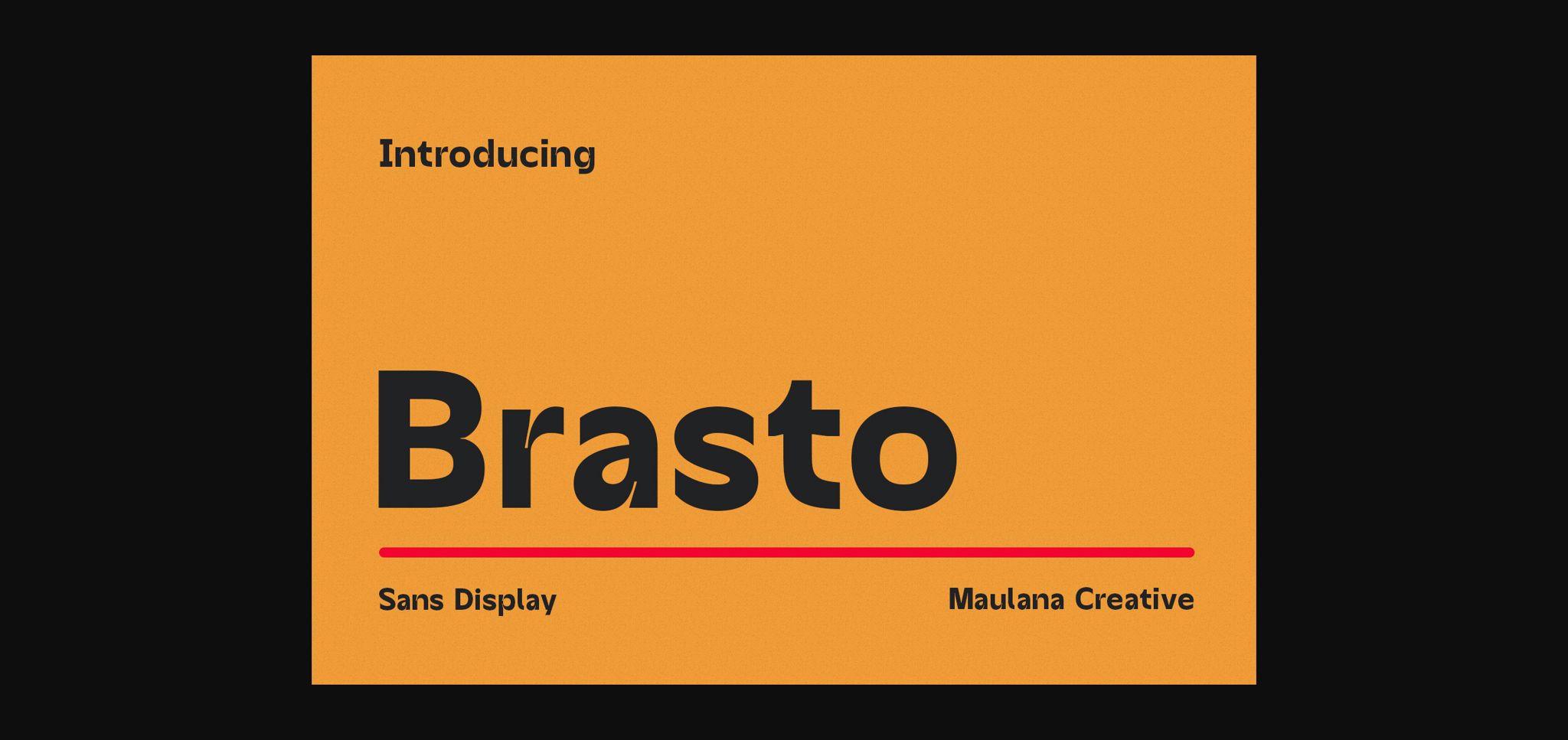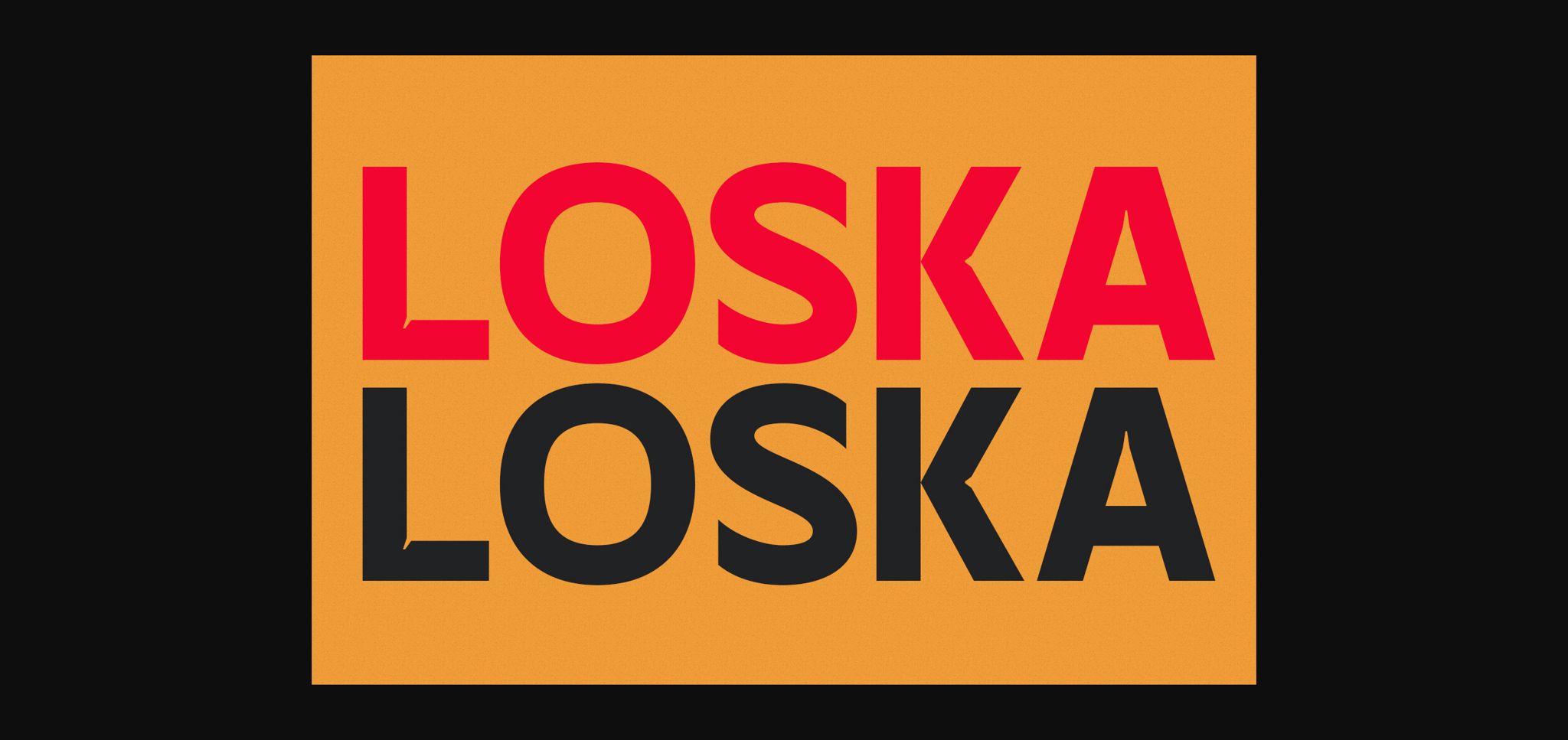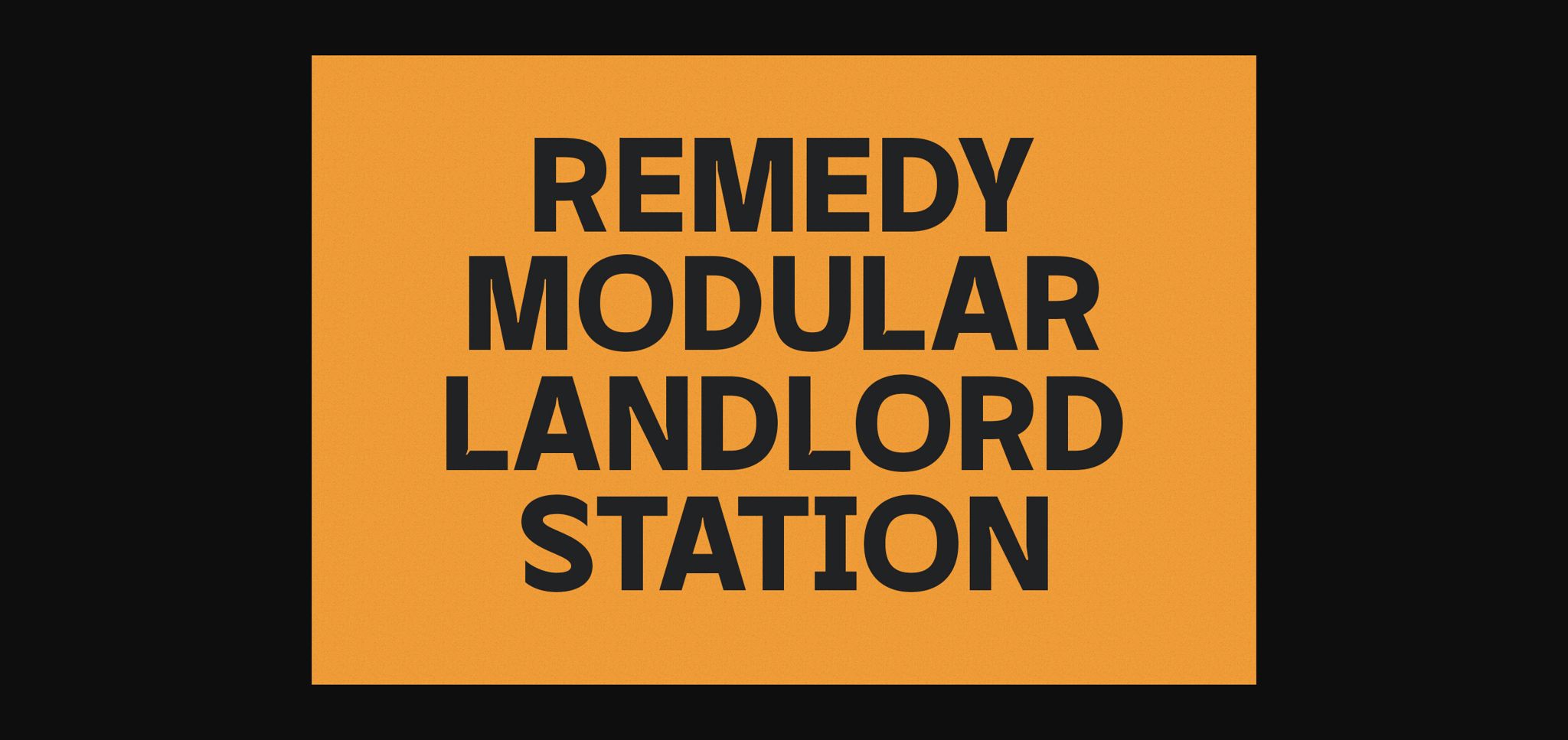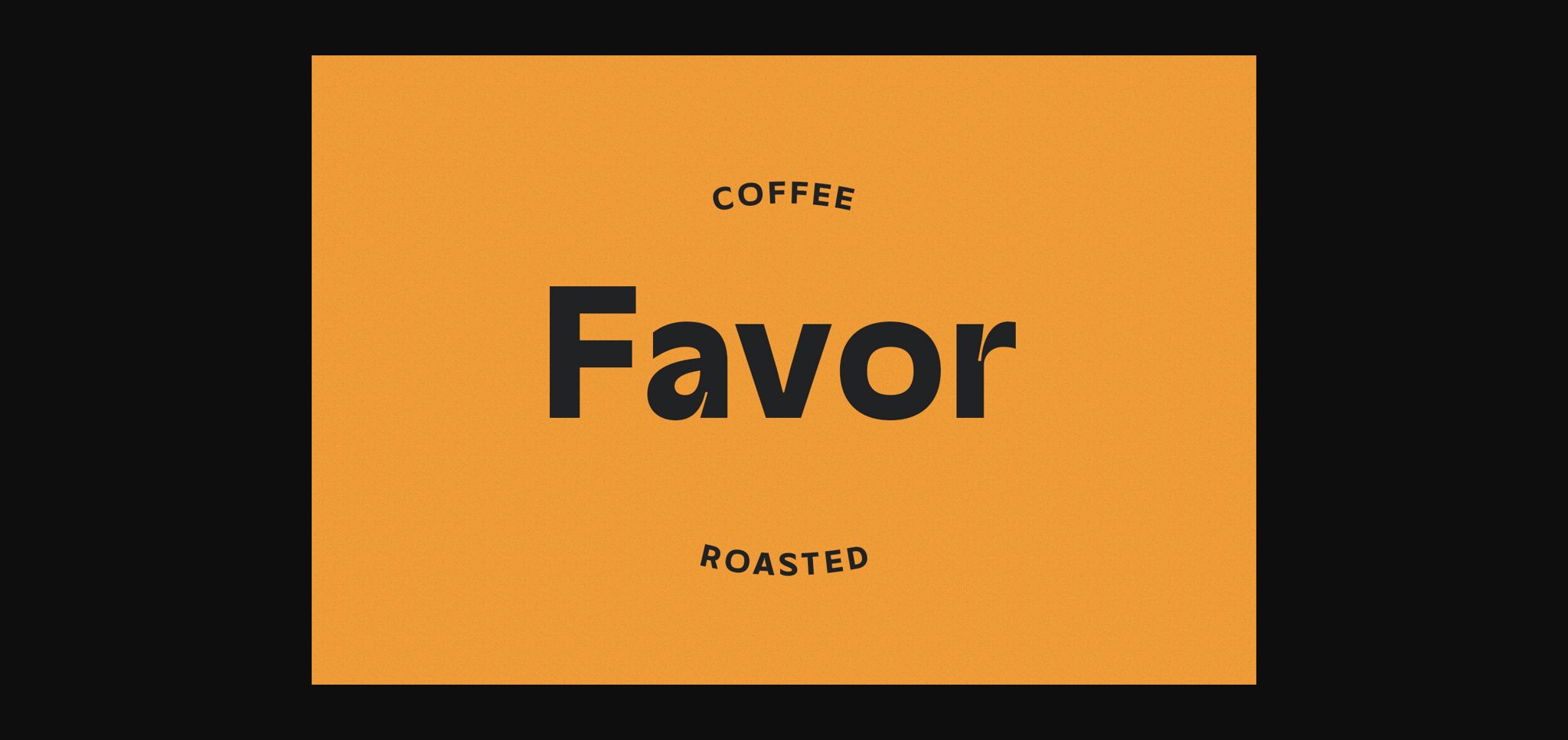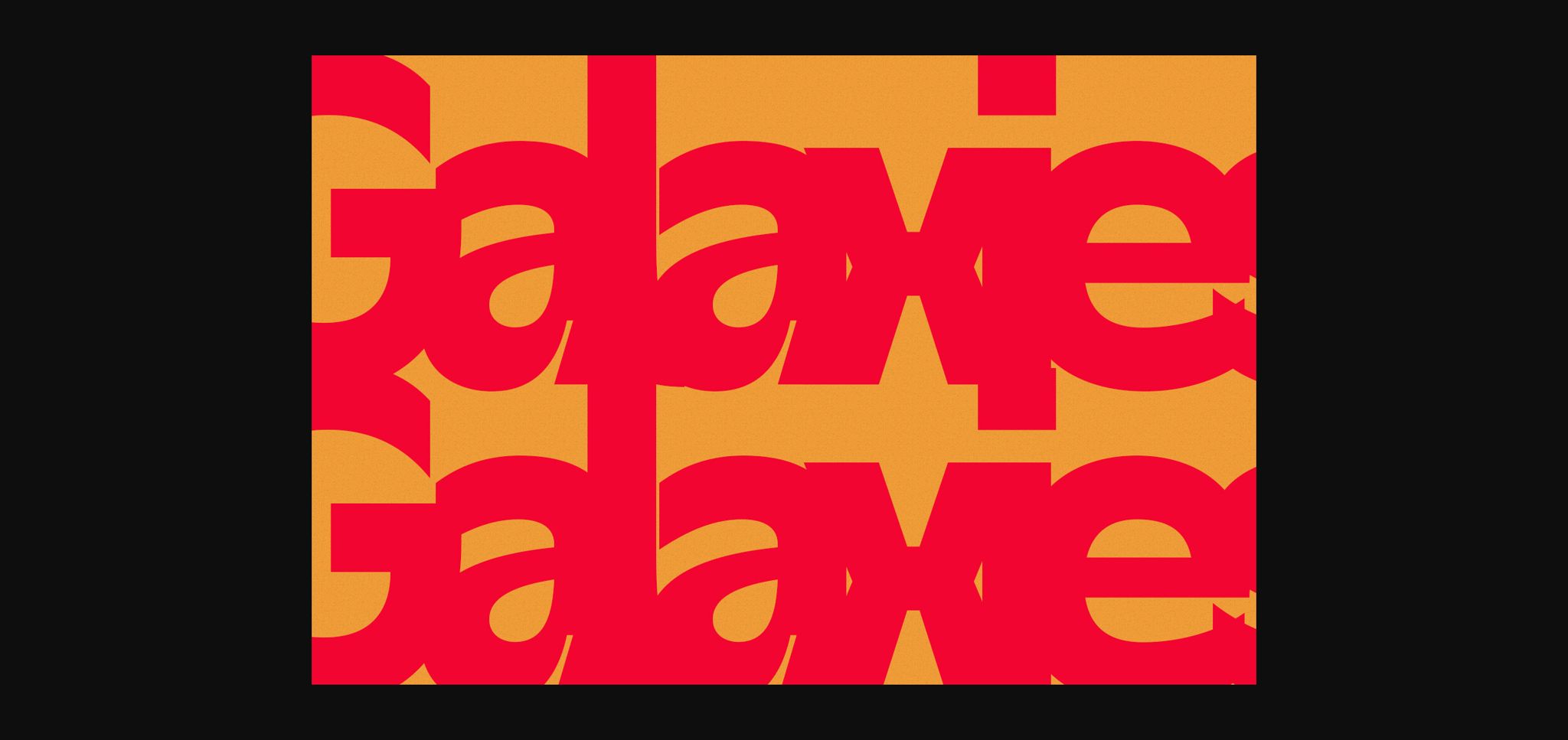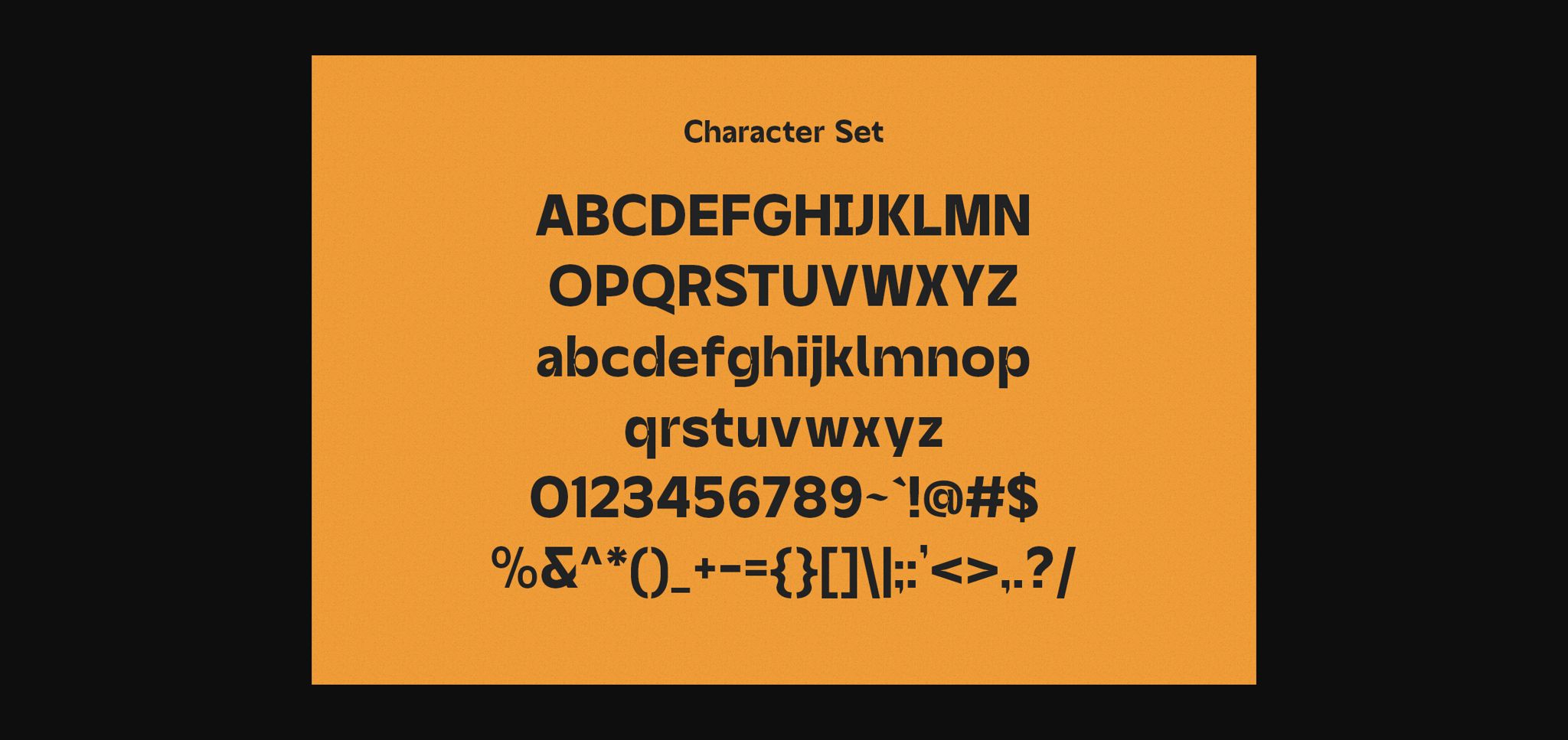
About Brasto Font
Brasto is a modern sans display font. Regular stroke, fun character with a bit of ligatures. To give you an extra creative work. Brasto font support multilingual more than 100+ language. This font is good for logo design, Social media, Movie Titles, Books Titles, a short text even a long text letter and good for your secondary text font with script or serif. Make a stunning work with Brasto font.